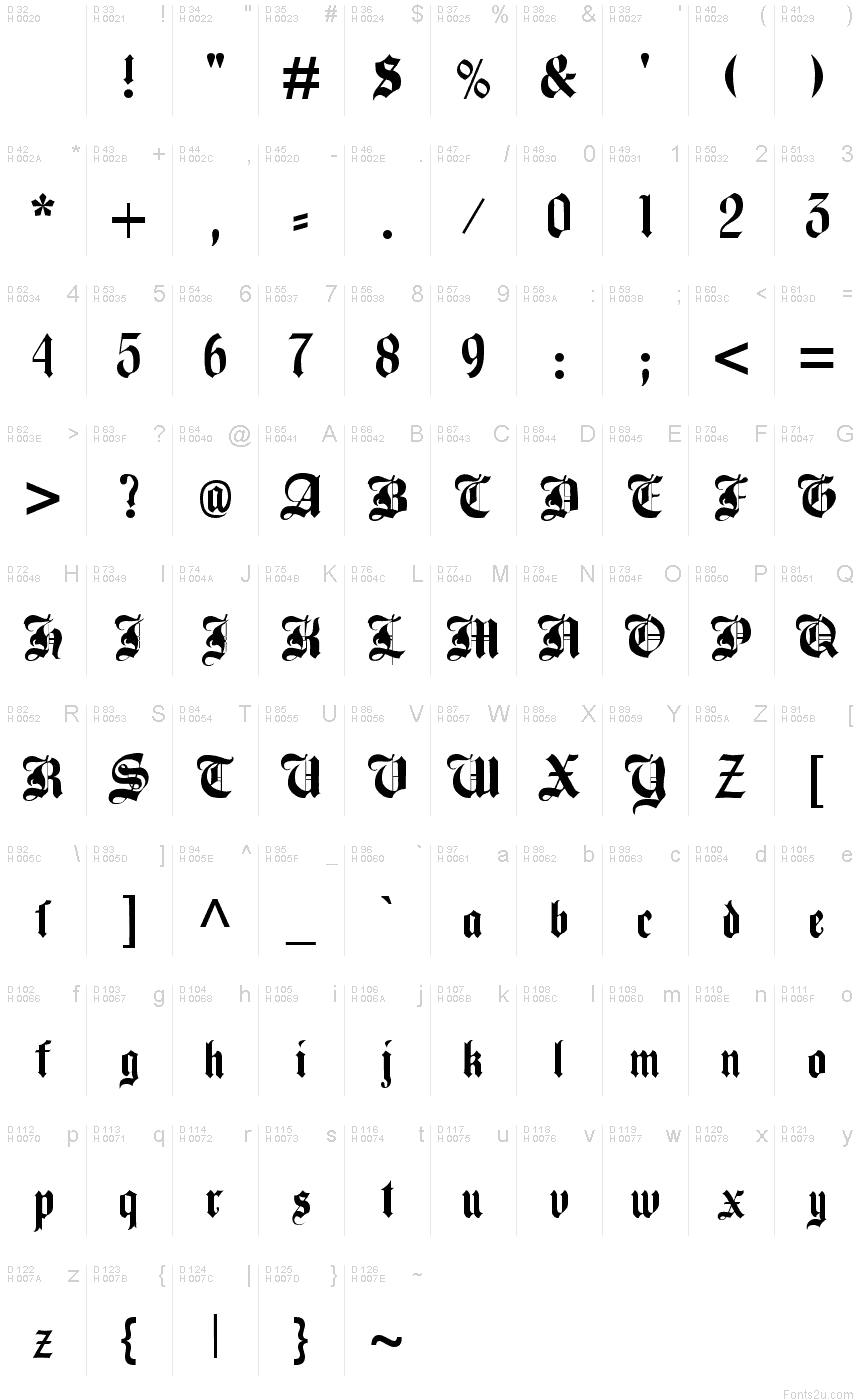
Beckett-Kanzlei
Beckett-Kanzlei by Typographer Mediengestaltung, with the full character set added by Dieter Steffmann, is a free blackletter font rooted in medieval chancery lettering. Sharp joins and sweeping curves form a dense ceremonial silhouette.
Packaging is a strong medium for its old-world detail, especially on specialty drinks or handcrafted goods. The same ornate strokes suit historical publishing, fantasy game graphics, and theatrical posters. Its clearest audience is designers seeking a manuscript-like voice with a dramatic edge.